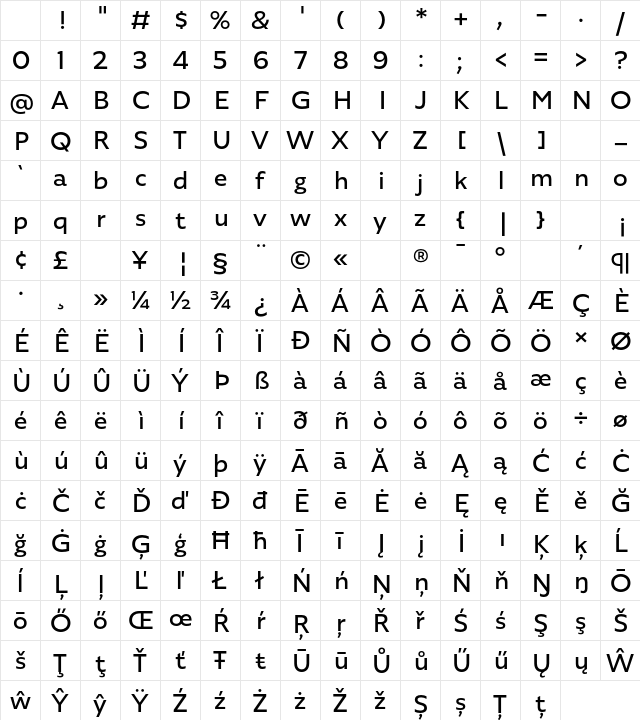
Agile Sans is a composed and adaptable typeface that performs quietly and consistently across a wide range of design contexts.
Pro Tip: Use Agile Sans in both headline and body roles to test its range before committing to a single application.